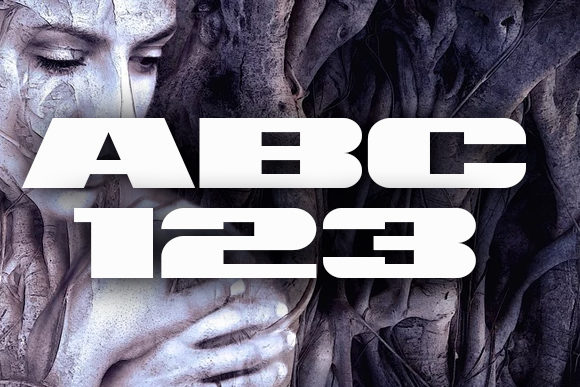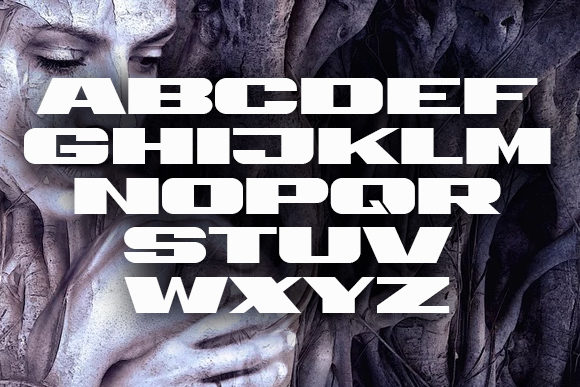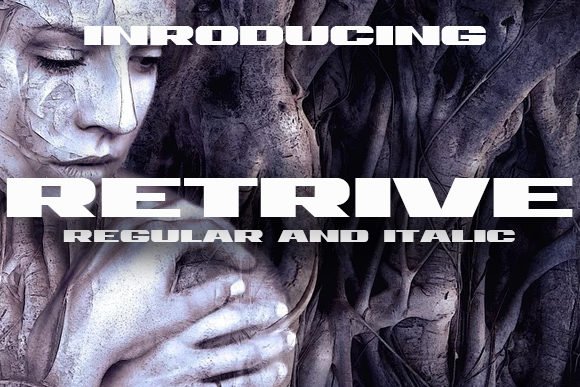
Introduction to Retrive Font
Retrive is an awesome display font.
Get creative with its unique style, and use it to brighten up any crafting project .
Why Choose Retrive Font?
Retrive Font offers exceptional quality and versatility, making it a valuable addition to your design toolkit. Whether you’re creating for personal projects or commercial use, Retrive Font delivers professional results.